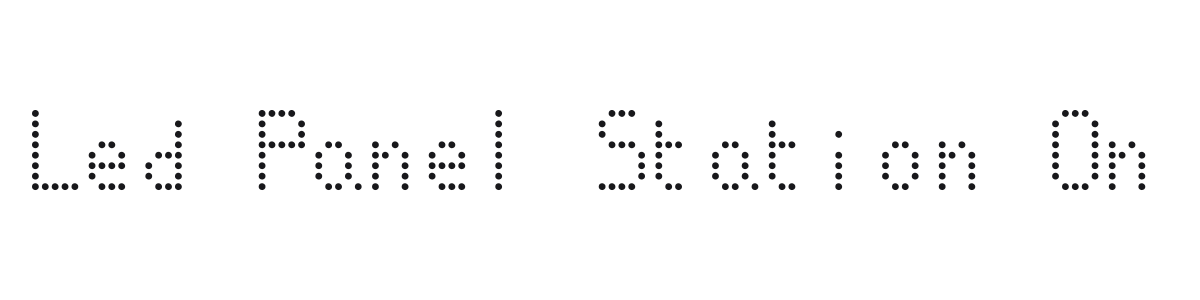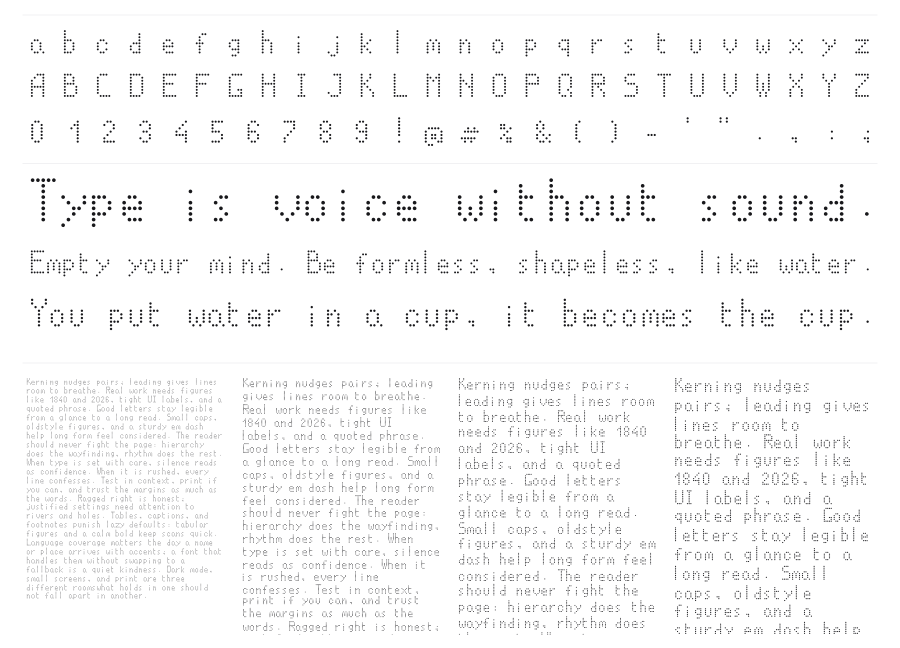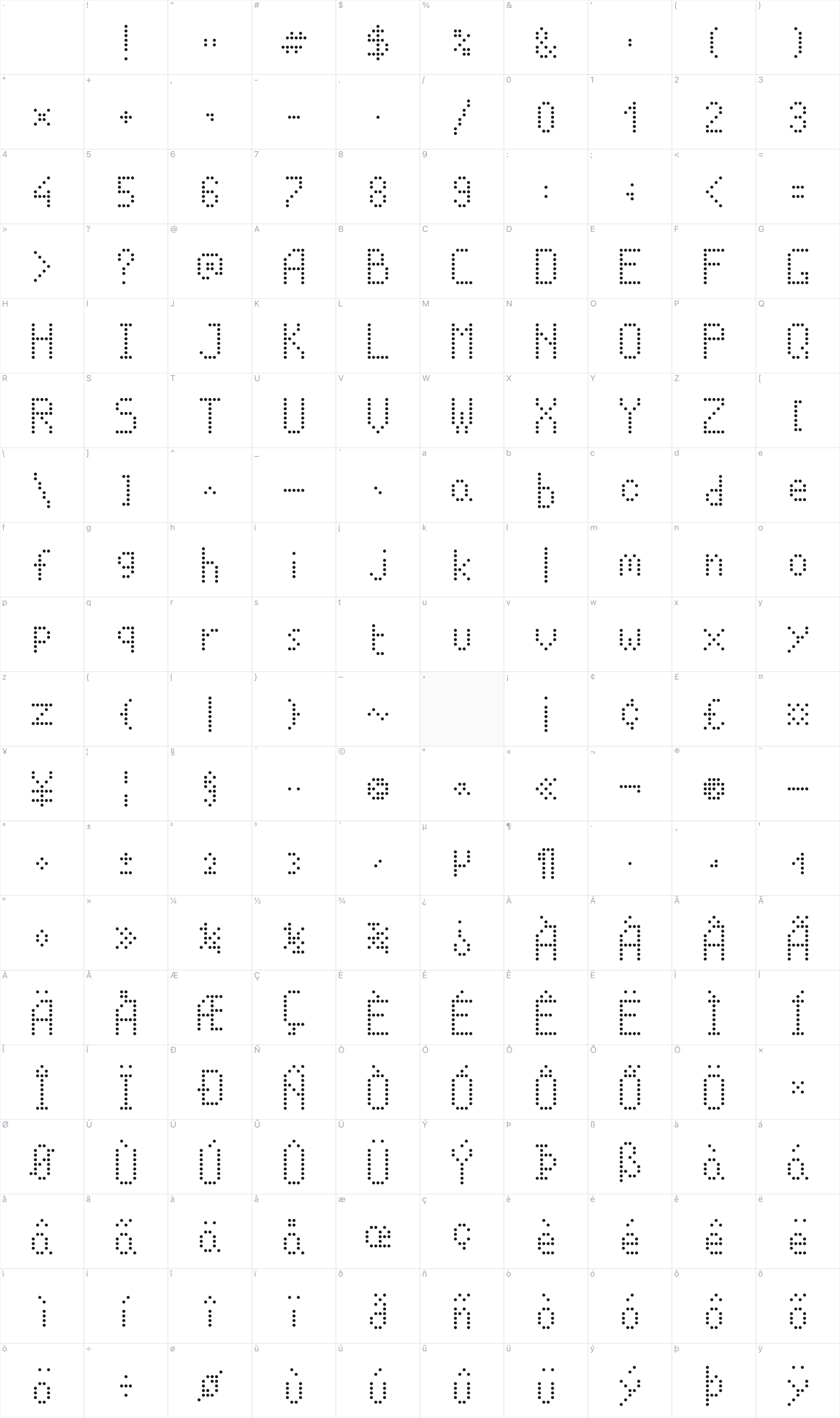
Led Panel Station On
Led Panel Station OnLine is a dot-matrix display font inspired by the backlit LED and flip-dot panels that once covered departure boards in airports and train stations. Every character is built from a grid of uniform circular dots, recreating that instantly recognizable electronic signage texture. It comes paired with an OFF version, letting designers layer the two for a fully lit or partially lit panel effect.